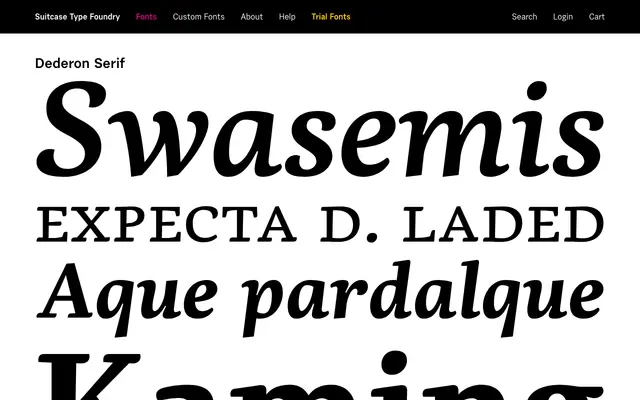
Dederon Serif
A serif companion to Dederon Sans from Suitcase Type Foundry, designed for coordinated use across the Dederon family.
Part of the Dederon type system, this serif is built to work alongside Dederon Sans in editorial and identity contexts where contrasting but related styles are needed. The pairing structure is typical of Suitcase's approach to building coherent, multi-style families. Limited page detail makes it difficult to assess the full weight range or script coverage.
Named and positioned as the serif counterpart to Dederon Sans, suggesting a contemporary design intended for paired use; insufficient page detail to determine historical model, but the pairing structure points to a modern, functional serif.